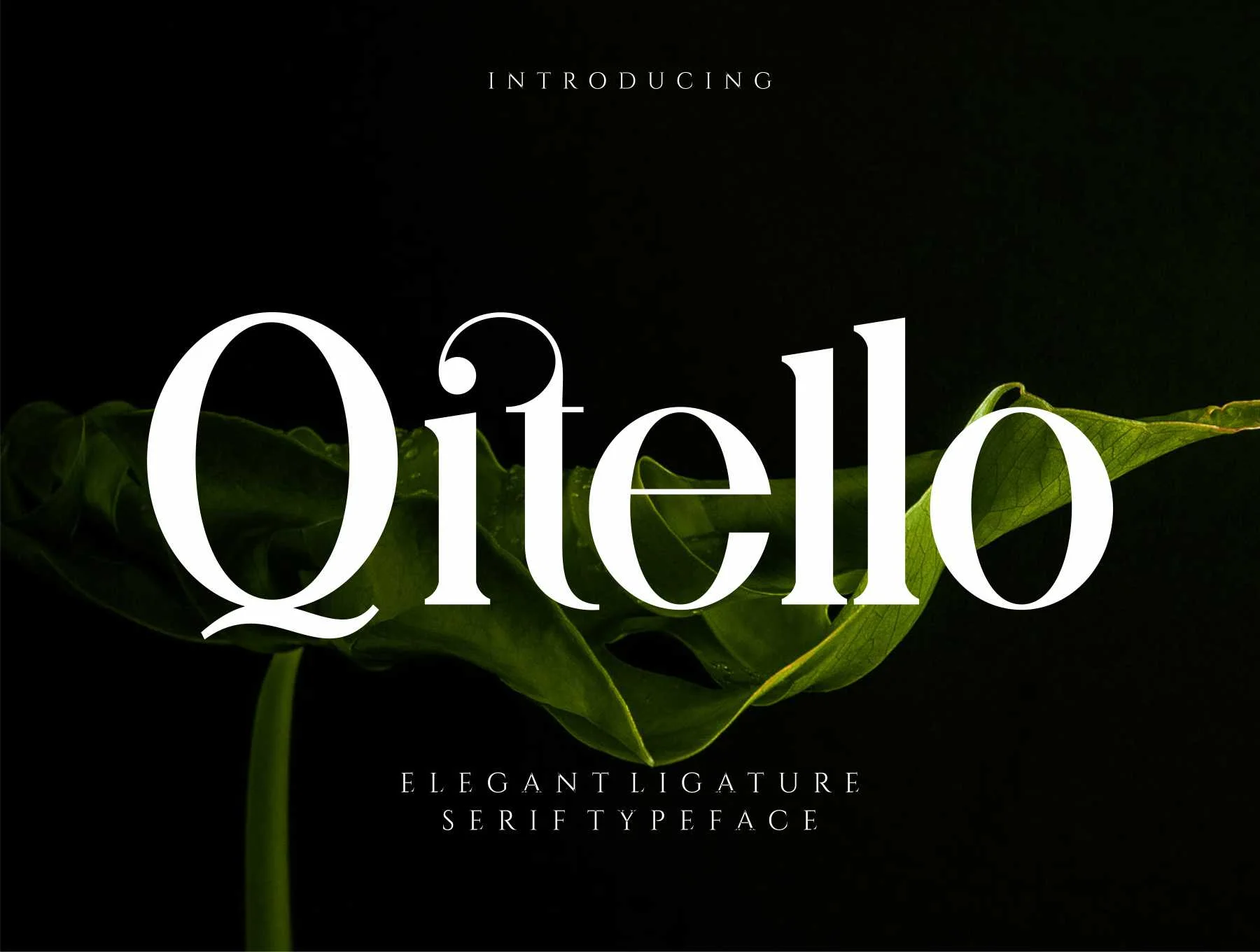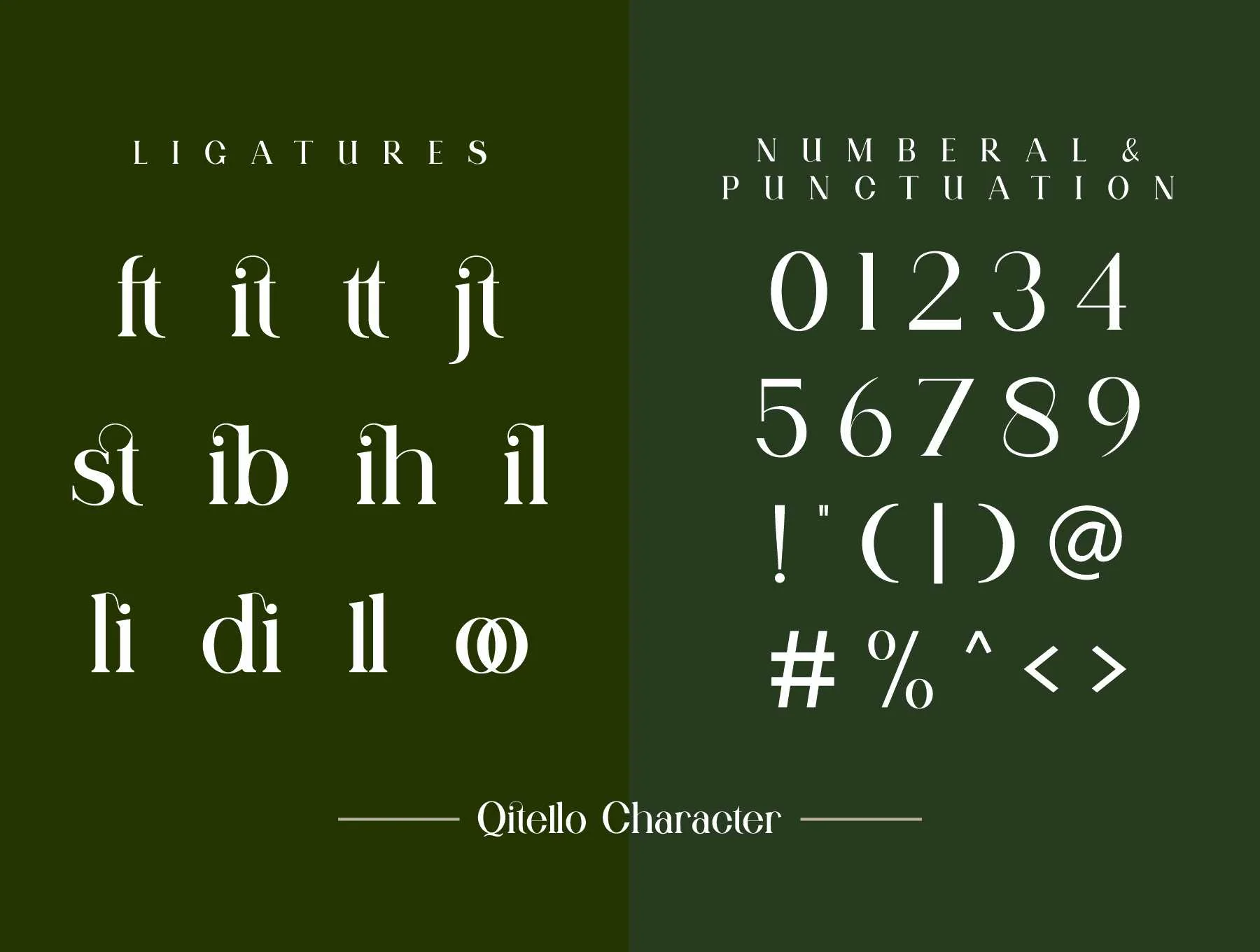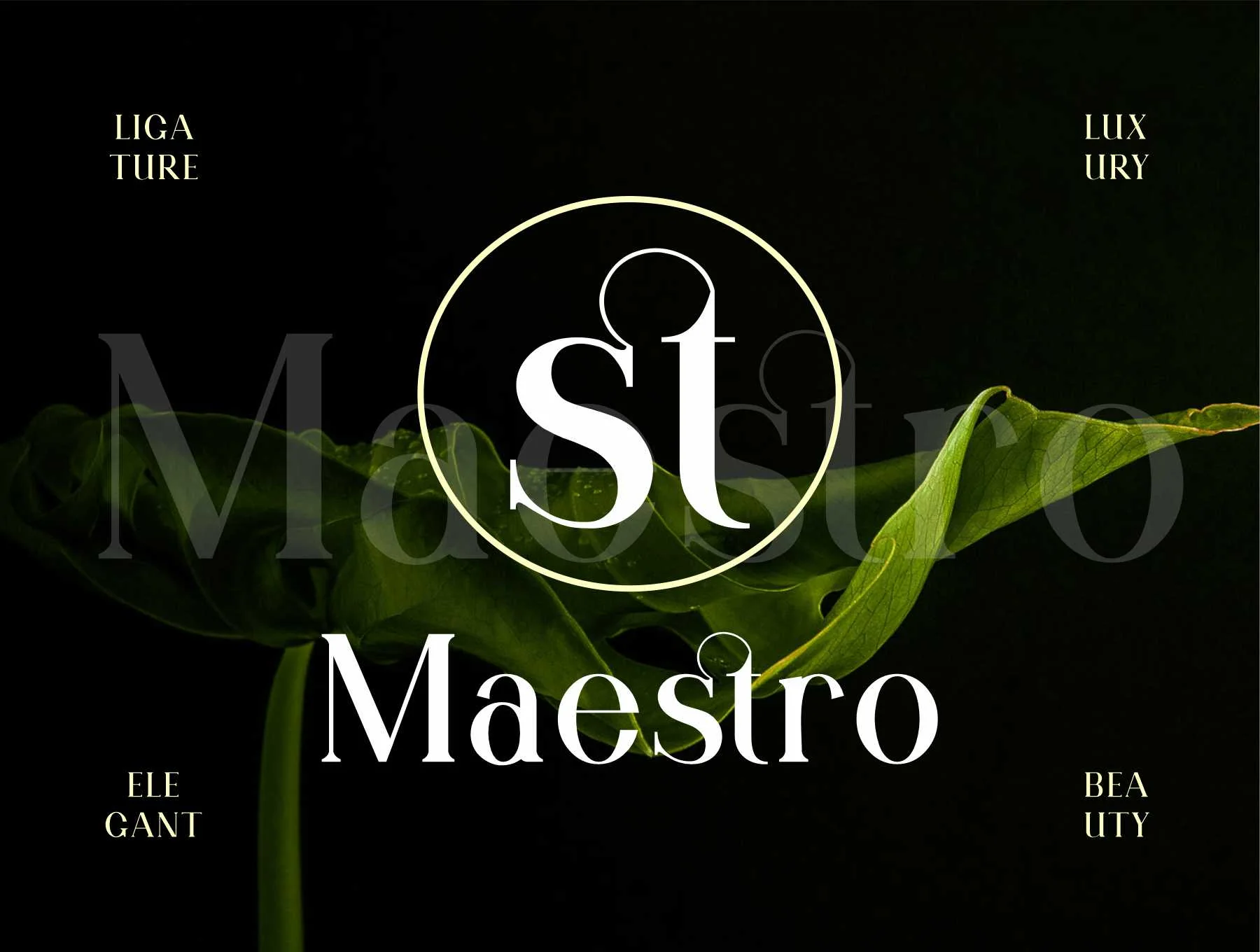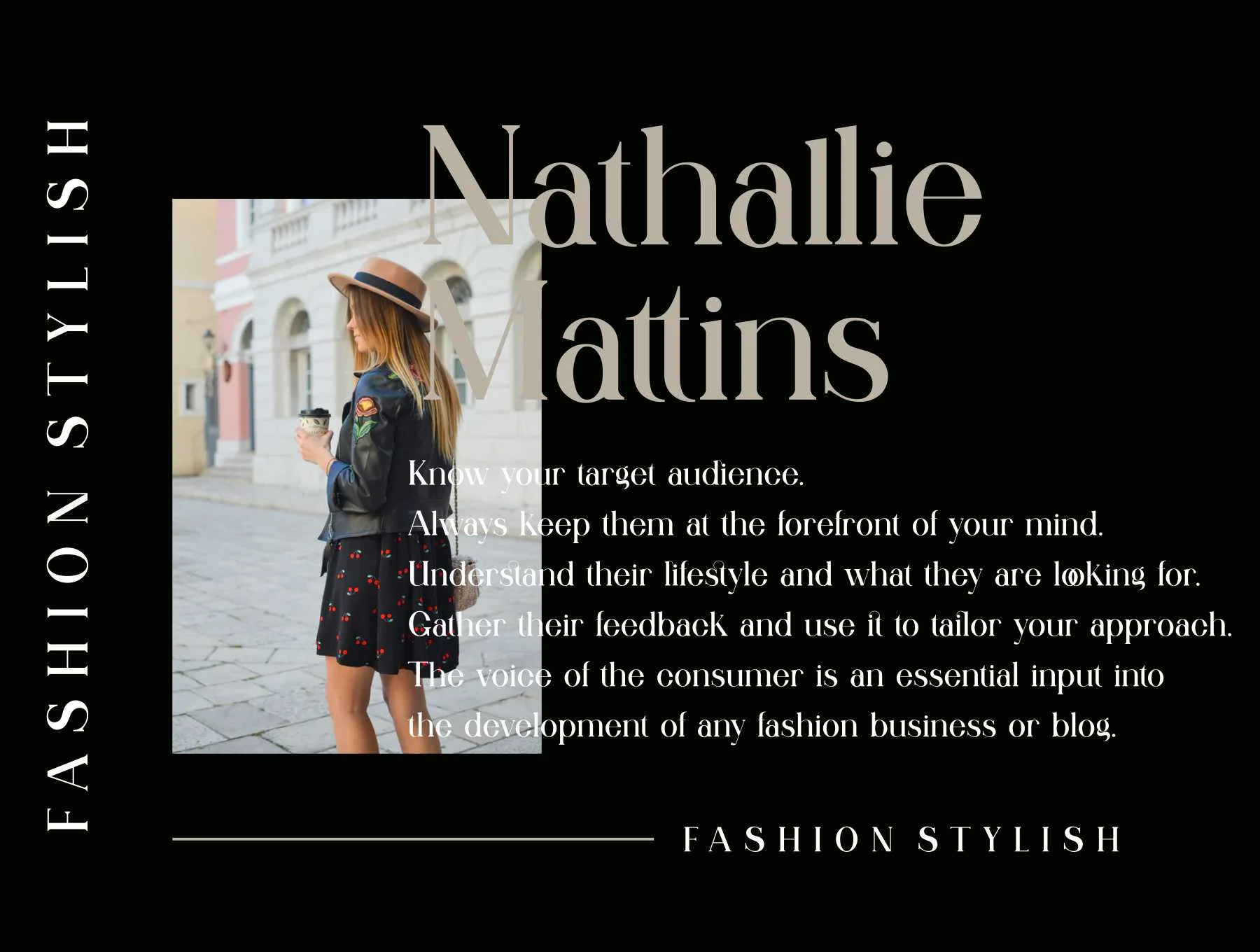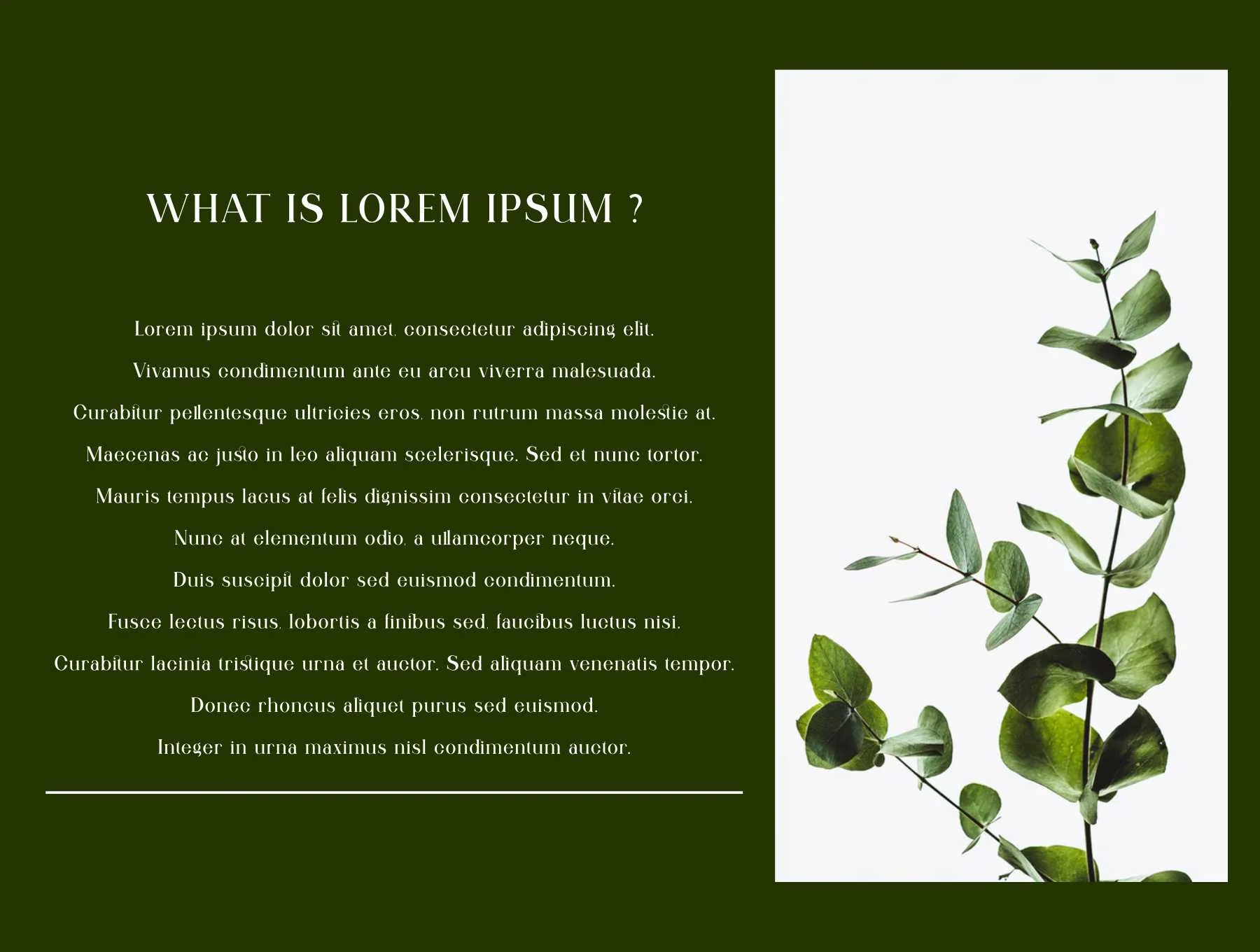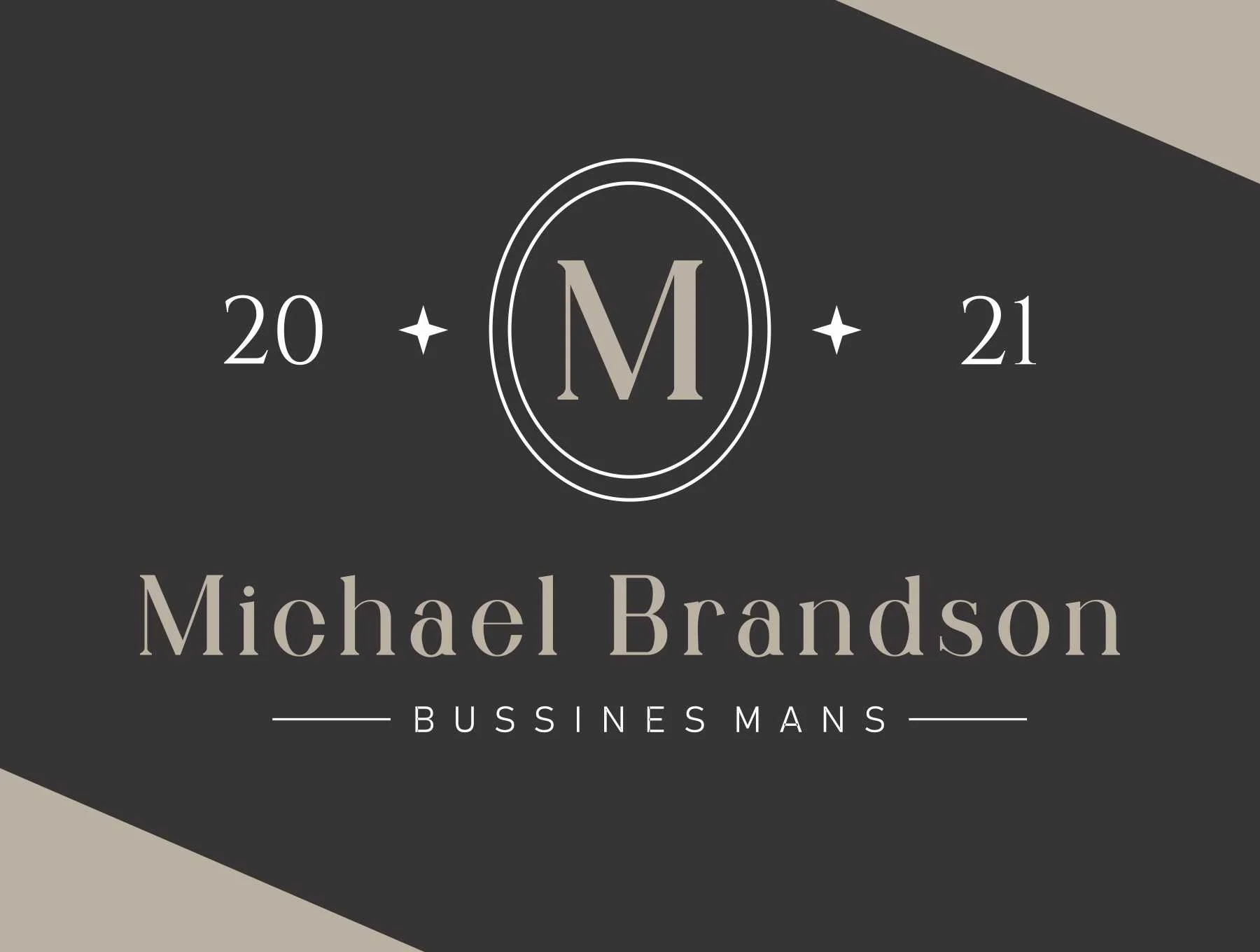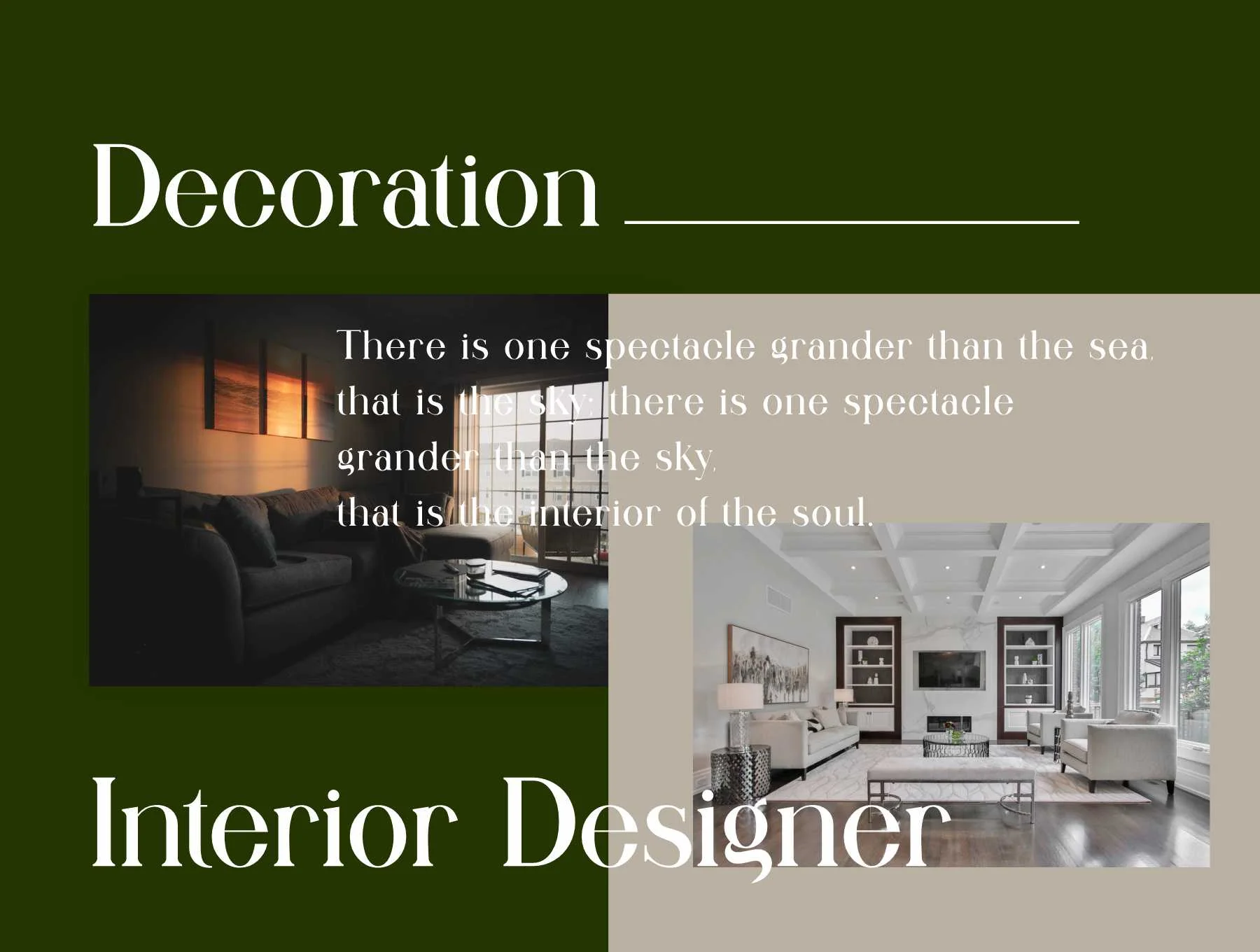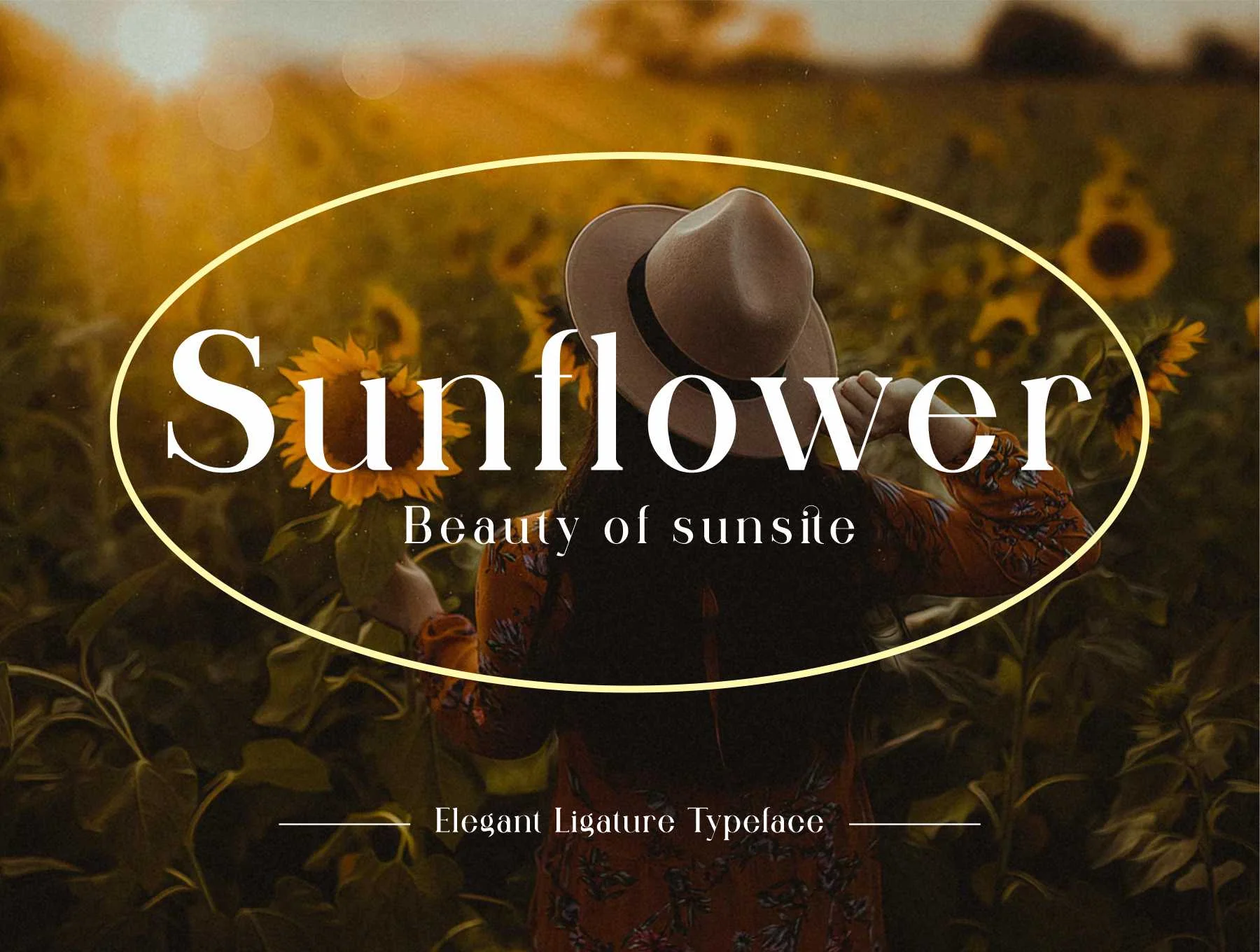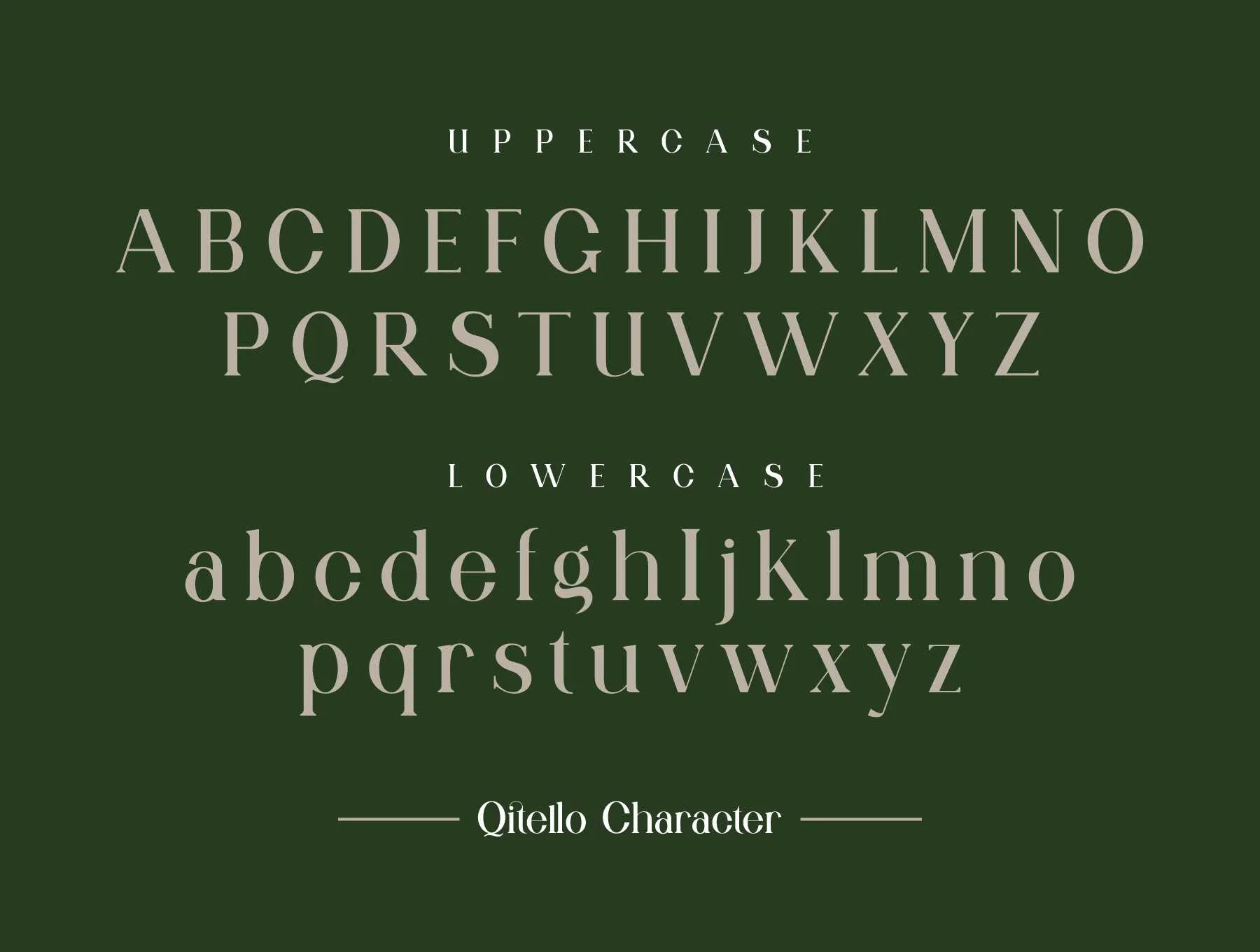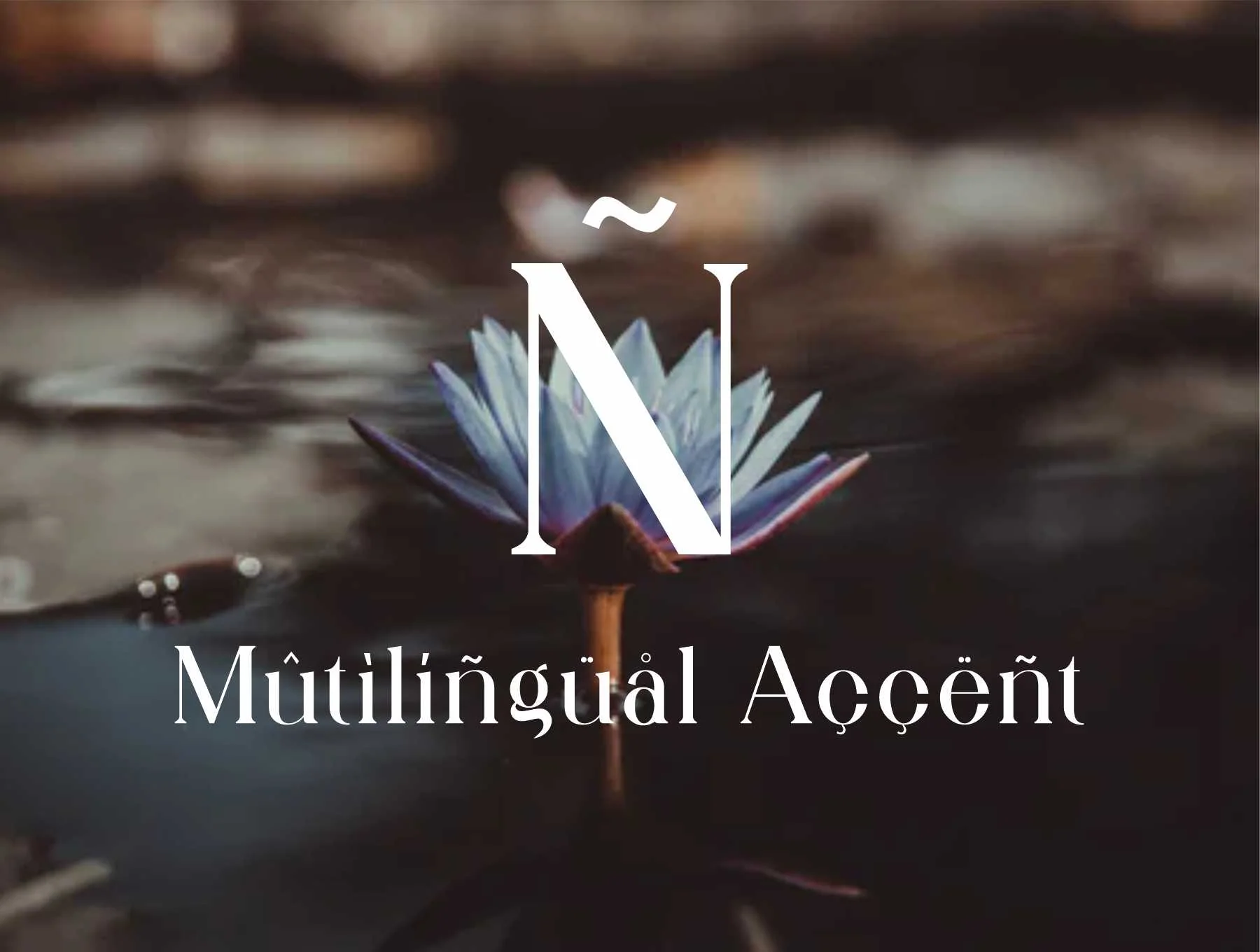
Qitello Ligature Serif Typeface
Serif Font with Ligatures
Complete uppercase and lowercase alphabet
Contemporary and stylish
Includes ligature characters
Qitello is a stylish ligature typeface inspired by iconic minimalist logos, ideal for templates, brochures, videos, ads, branding, logos, and more. Includes OTF/TTF files, web font, standard glyphs, ligatures, international accents, multilingual support, and PUA encoding. Works on PC/Mac and in Adobe apps or Microsoft Word.